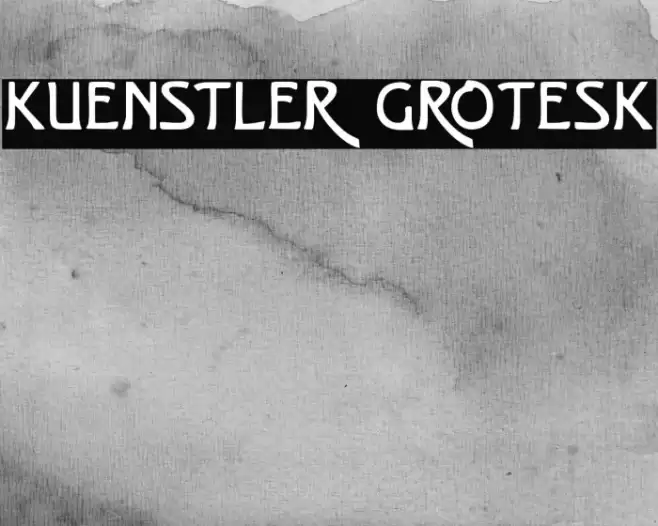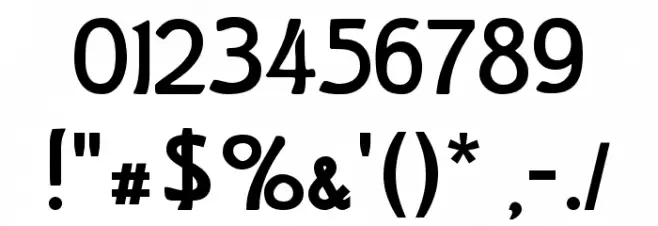
Kuenstler Grotesk Font
Kuenstler Grotesk Description
This font features a unique and playful design with a slightly irregular and hand-drawn appearance. The characters have a whimsical quality, with varying stroke thickness that adds a dynamic feel. The uppercase letters are bold and prominent, while the lowercase letters maintain a consistent style with a touch of quirkiness. The numerals are clear and easy to read, complementing the overall design. Special characters are well-integrated, maintaining the font's distinctive style. This font is suitable for creative projects that require a touch of personality and flair.
A playful, hand-drawn style font with dynamic stroke variations from Uncategorized fonts.
- Proposed Projects: Ideal for children's books, creative posters, playful branding, and artistic invitations.
- Overall Style: Playful, Artistic